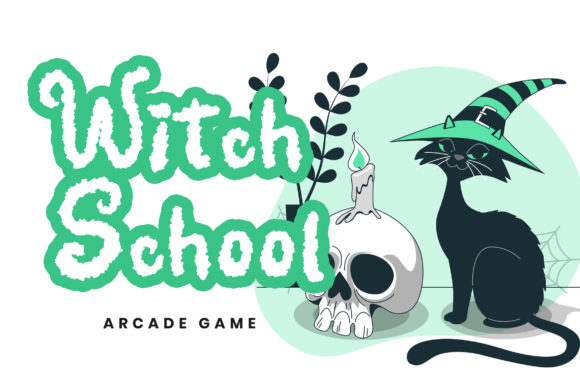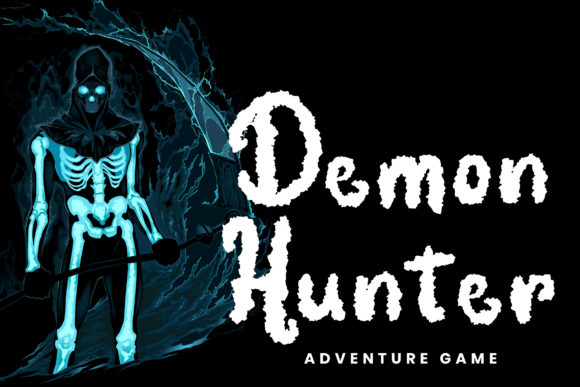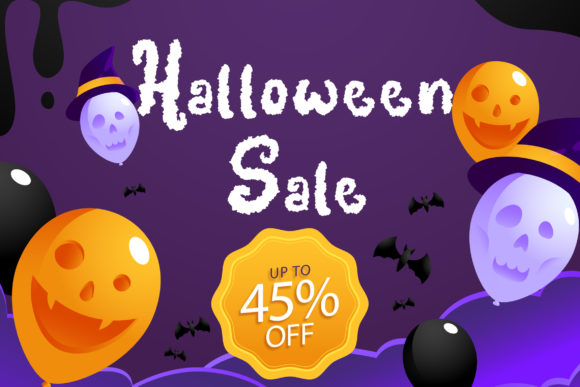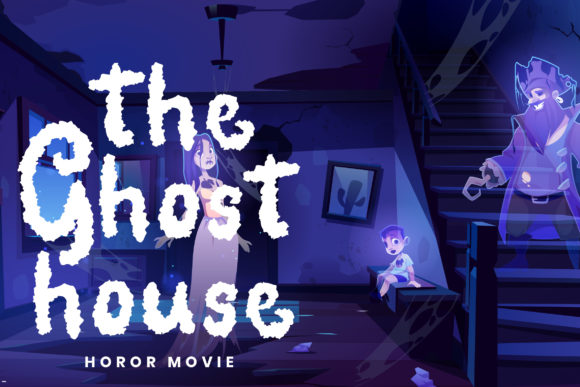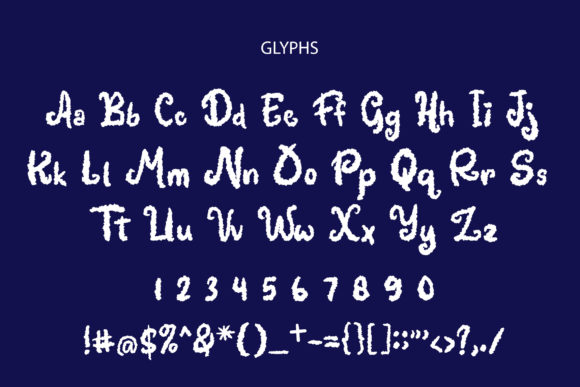
Get Ready to Cast a Spell with Beldam Font
As the clock strikes midnight on a crisp autumn evening, the air is filled with the whispers of witches, ghosts, and goblins. It’s the perfect time to conjure up some spooky magic for your next Halloween project. And what better way to do that than with the perfect font?
Enter Beldam Font, a hauntingly beautiful display font that’s sure to cast a spell on your audience. Designed with Halloween in mind, this font is perfect for invitations, branding projects, logos, and more. Whether you’re a seasoned designer or just starting out, Beldam Font is a valuable addition to your toolkit, offering a unique and eye-catching way to add some spooky flair to your work.
Beldam Font Key Features
- Font Family: Beldam Font
- Unique Characteristics: Beldam Font features a unique, elegant, and refined design, making it suitable for various design projects, including branding, advertising, and editorial content.
Beldam Font Review
As a designer, I was excited to dive into the Beldam font and see what it had to offer. Overall, I found it to be a unique and intriguing addition to any design project.
- Unique character set: The Beldam font boasts a distinctive set of characters that add a touch of whimsy to any design.
- High-quality glyphs: The font’s glyphs are well-crafted and detailed, making it a great choice for designers looking to add some texture to their work.
- Small character set: While the Beldam font’s unique character set is a major selling point, it’s also a limitation for designers who need a wide range of characters for their projects.
- Limited language support: The font’s character set is primarily focused on Latin-based languages, which may limit its use for designers working on projects that require other languages.
The Beldam font is a great choice for designers who are looking to add a touch of personality to their work. While it may not be the most versatile font, its unique character set and high-quality glyphs make it a great addition to any design project.
Tips for Getting the Most Out of Beldam Font
For optimal results, use Beldam Font in conjunction with bold or italic styles to add emphasis and create visual interest.
Use the font in combination with other decorative fonts to create unique and eye-catching typography.
Experiment with different font sizes and colors to achieve the desired effect.
Beldam Font is ideal for use in:
Title cards and headings
Fashion and beauty branding
Vintage-inspired designs
Alternatives to Beldam Font
Playfair Display is an elegant, high-end serif font perfect for creating a luxurious and sophisticated atmosphere. It’s ideal for use in titles, headings, and other display text where a touch of sophistication is needed.
Compared to Beldam Font, Playfair Display has a more refined and polished look, with intricate details and flourishes. While Beldam Font has a more rustic and vintage feel, Playfair Display is better suited for modern and high-end designs.
Great Vibes is a stylish and modern script font that adds a touch of elegance and sophistication to any design. It’s perfect for use in titles, headings, and other display text where a sense of luxury and refinement is needed.
Compared to Beldam Font, Great Vibes has a more fluid and dynamic feel, with a sense of movement and energy. While Beldam Font has a more rustic and vintage feel, Great Vibes is better suited for modern and trendy designs.